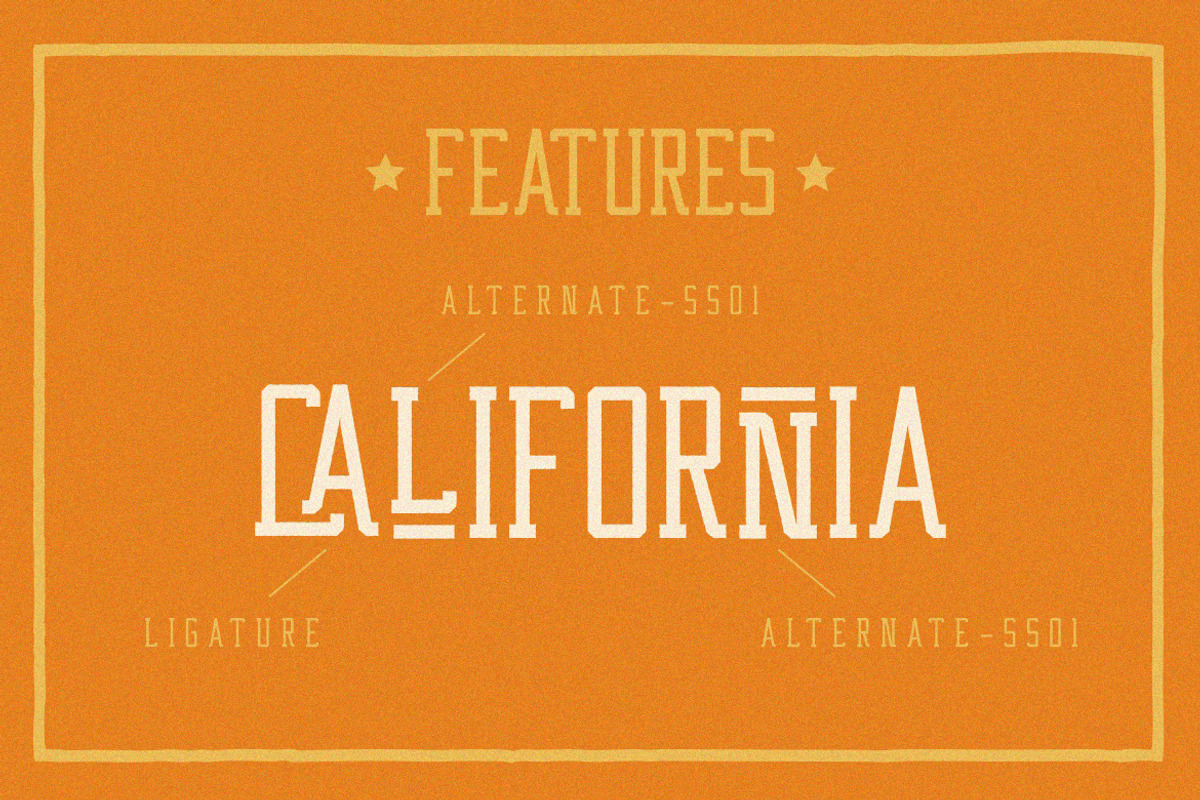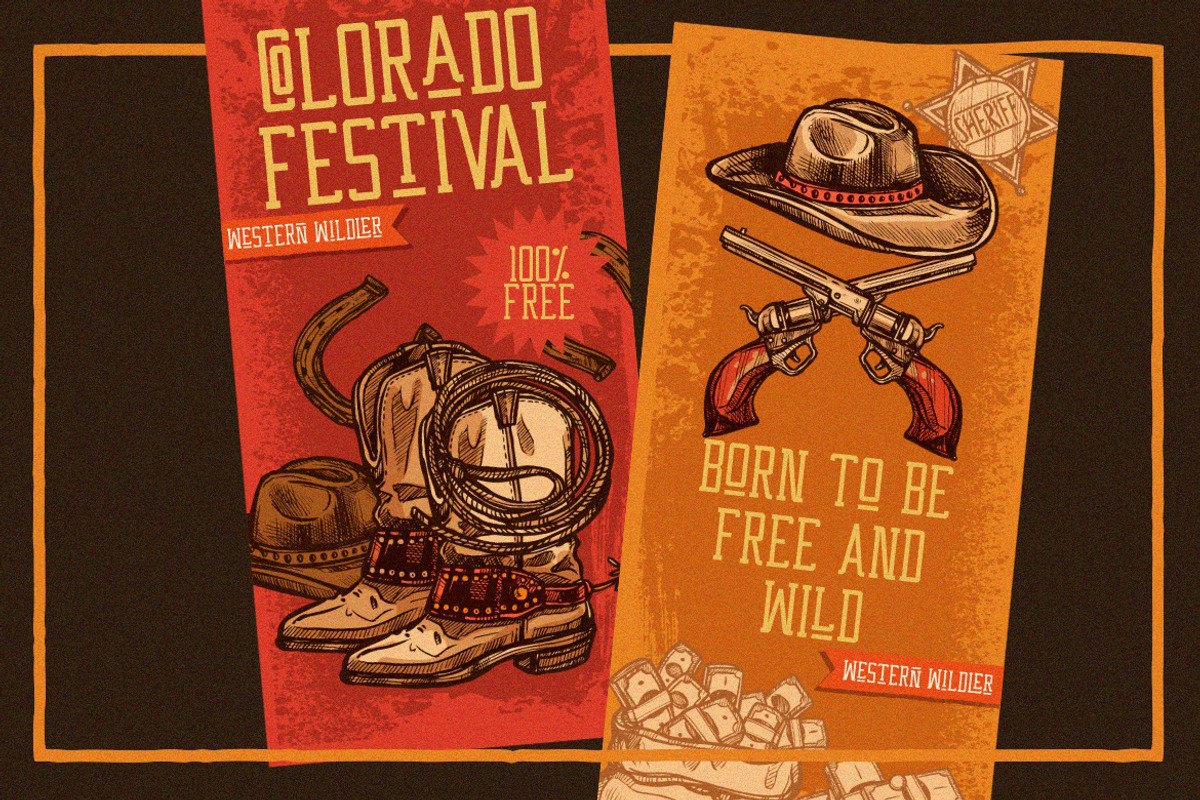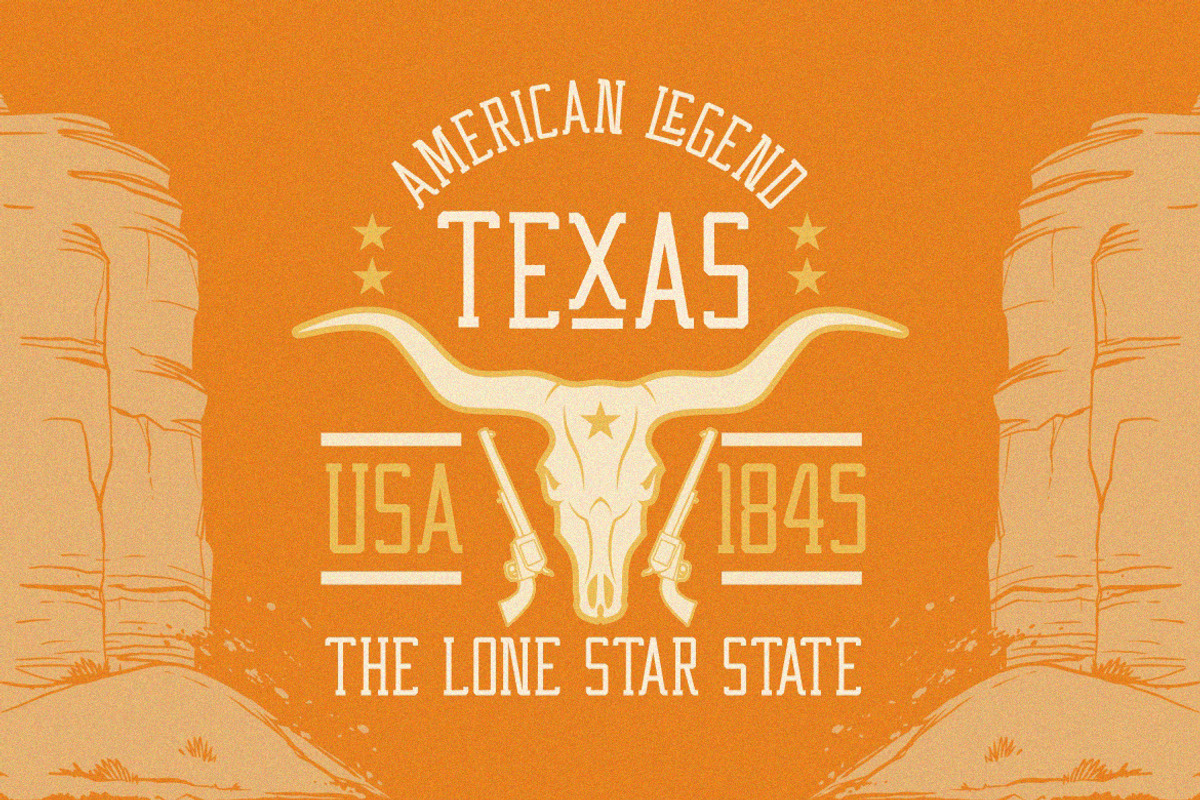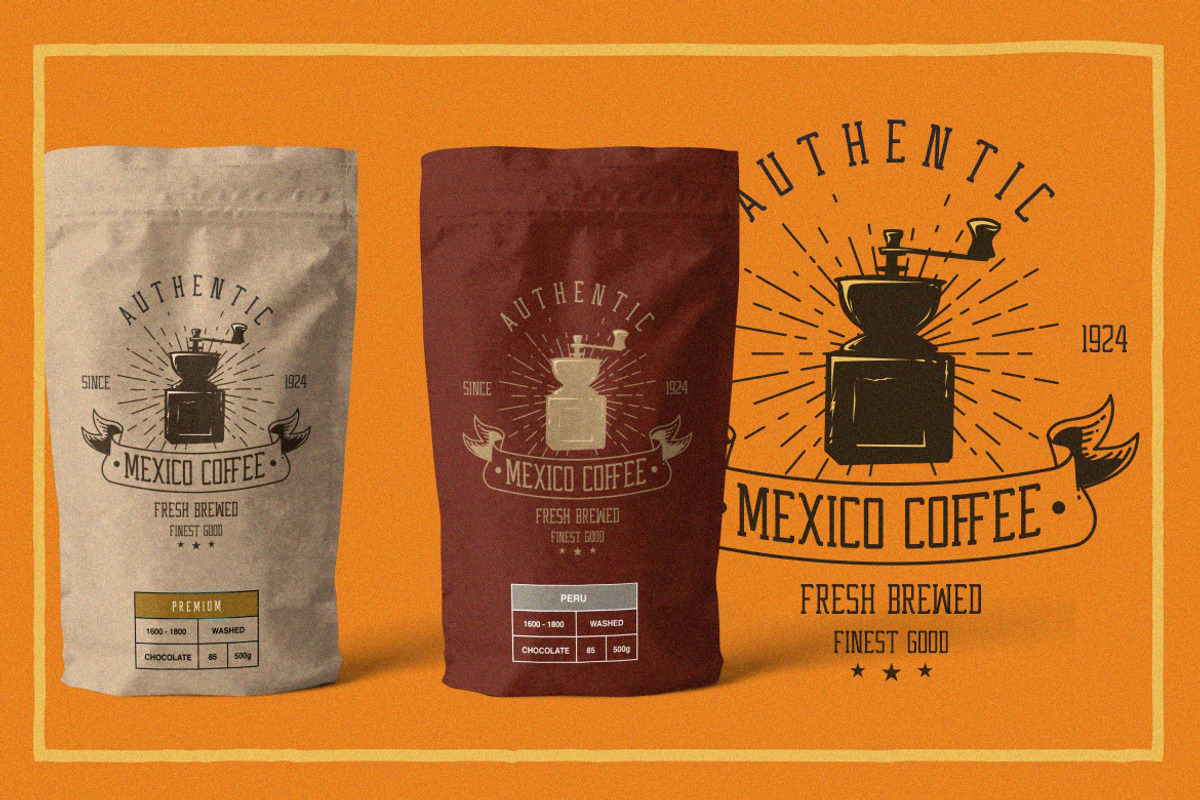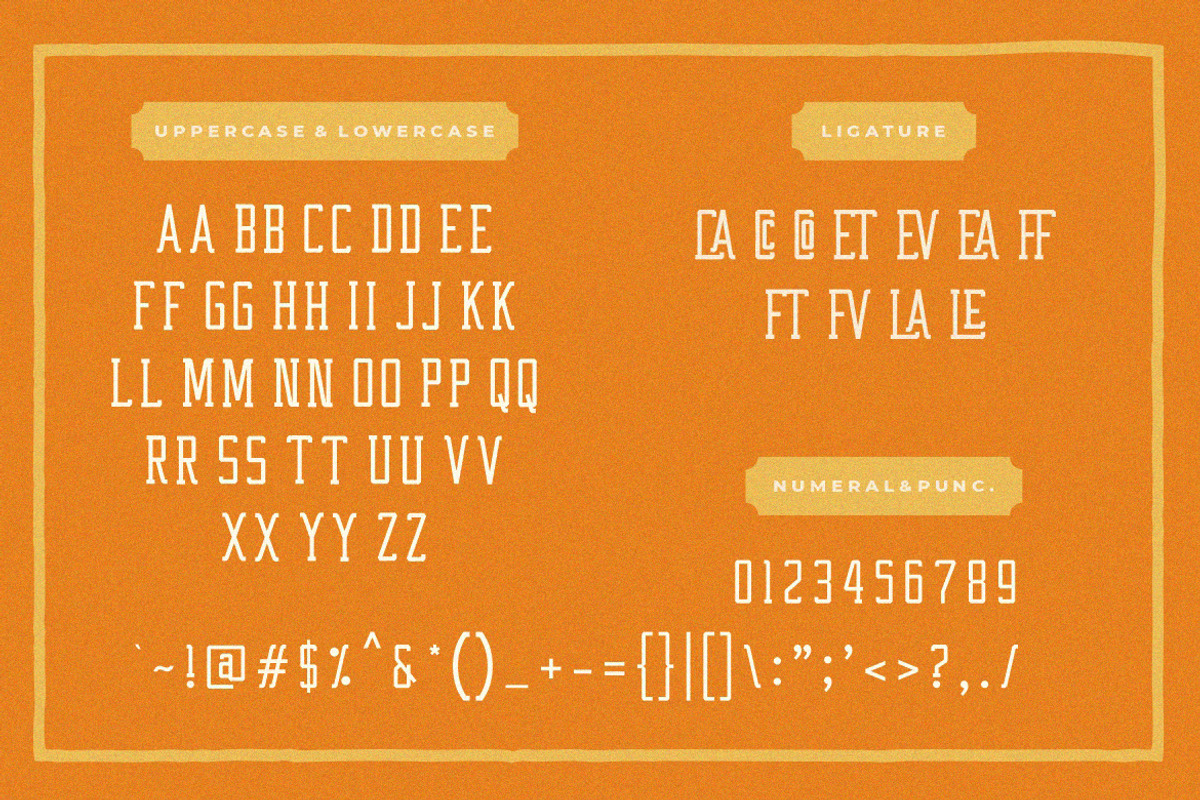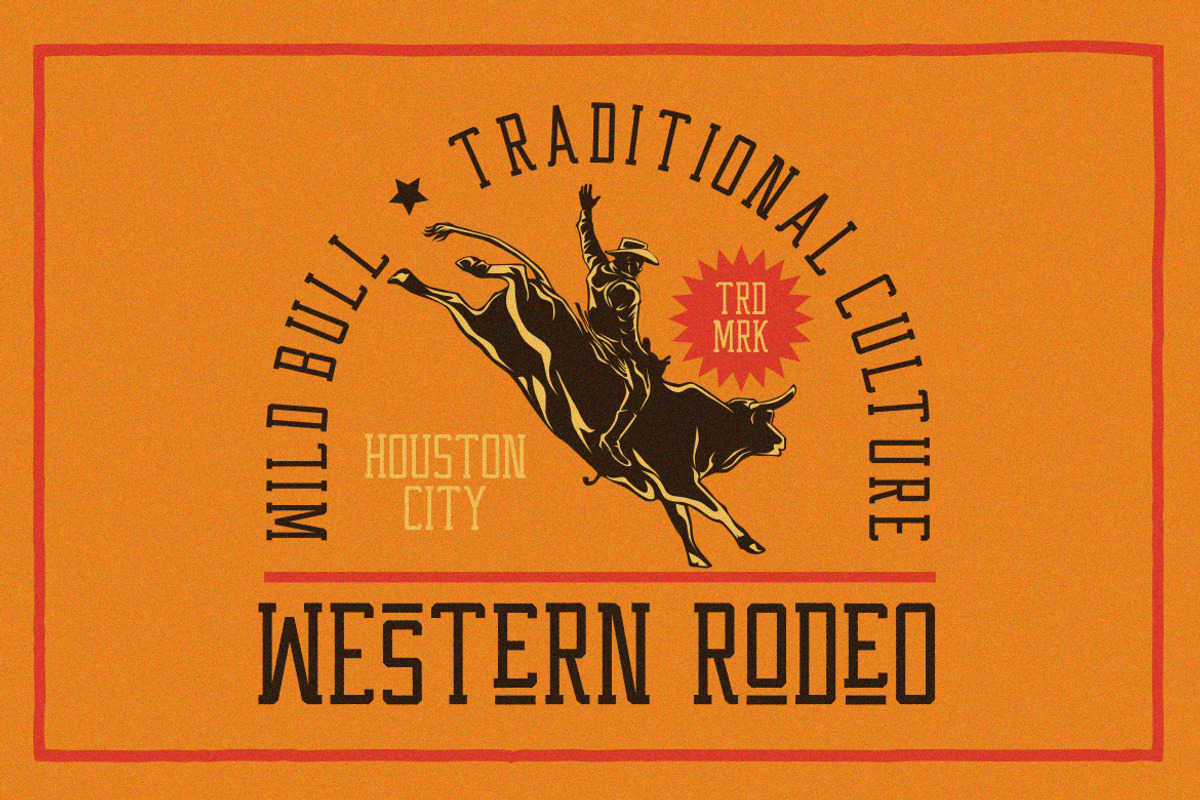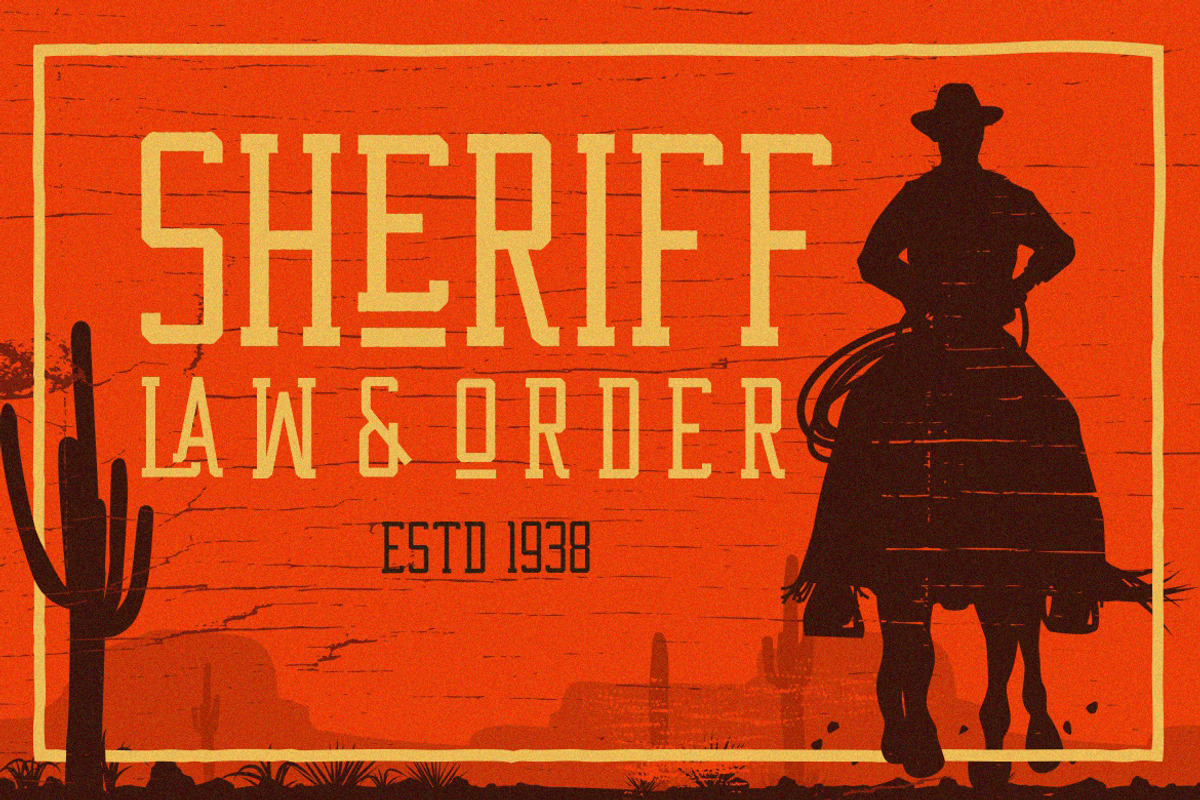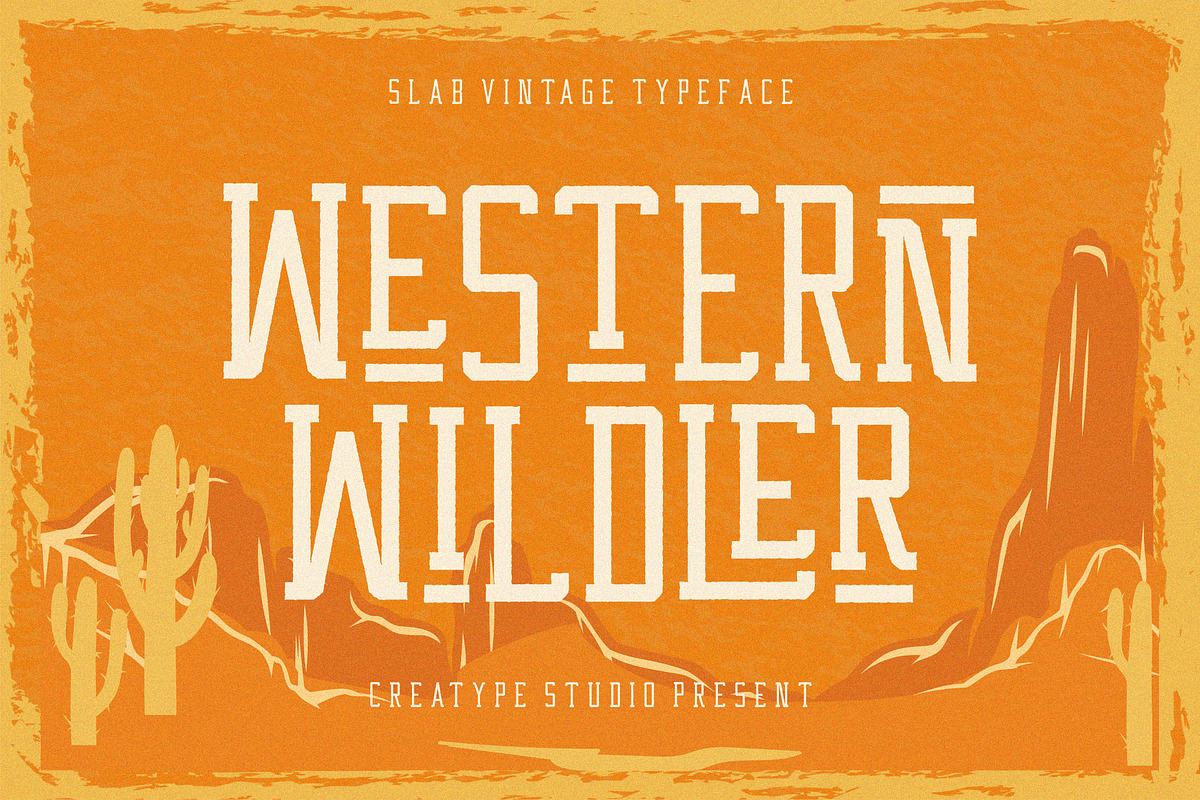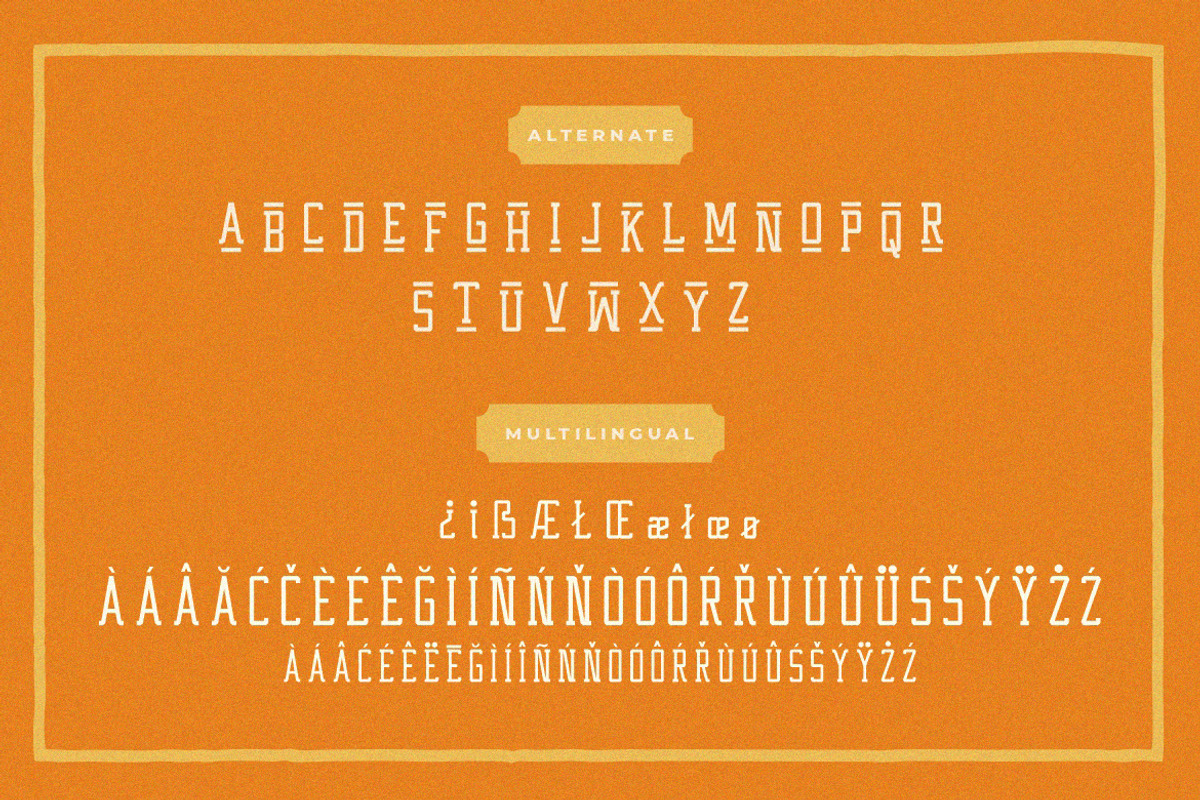
Western Wildler Slab Vintage
Western Wildler a slab vintage font which inspired by wild life west with retro style will make your work looks amazing.
Western Wildler would perfect for photography, watermark, social media posts, advertisements, logos & branding, invitation, product designs, label, stationery, wedding designs, product packaging, special events or anything that need handwriting taste.
- Ligature & Alternate